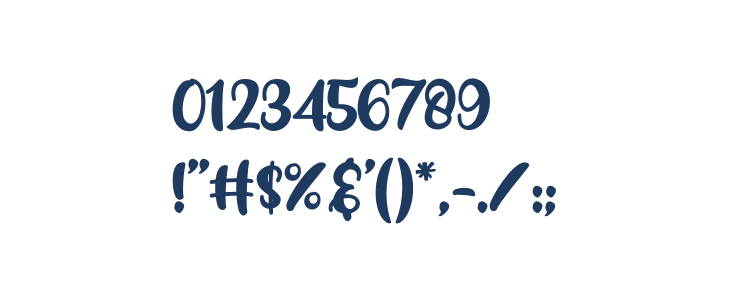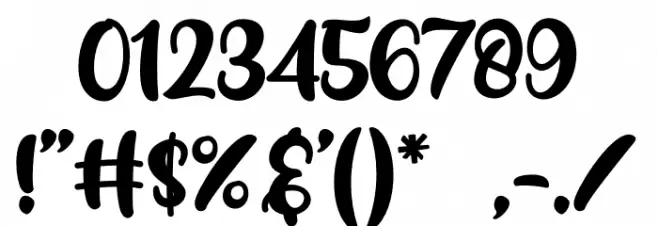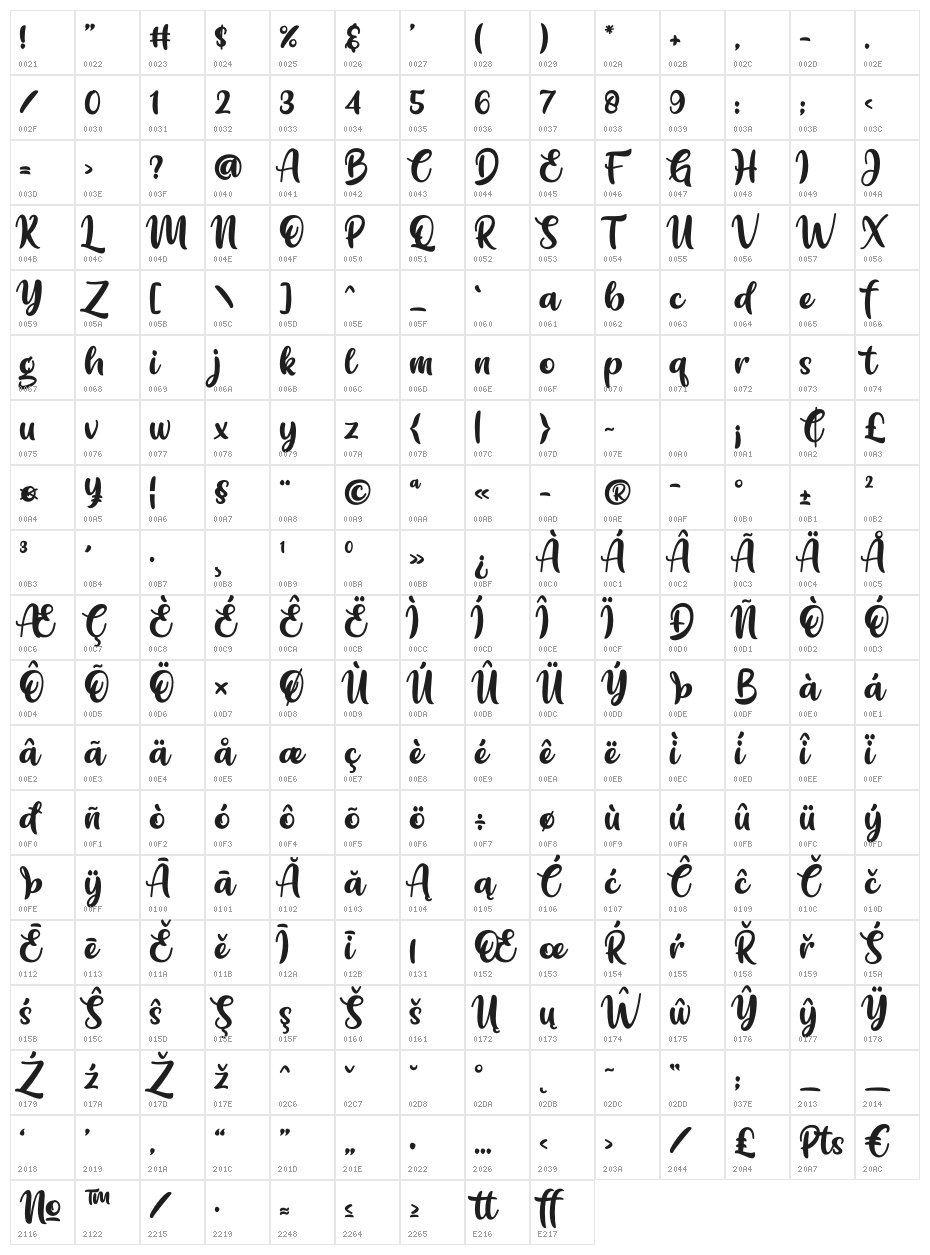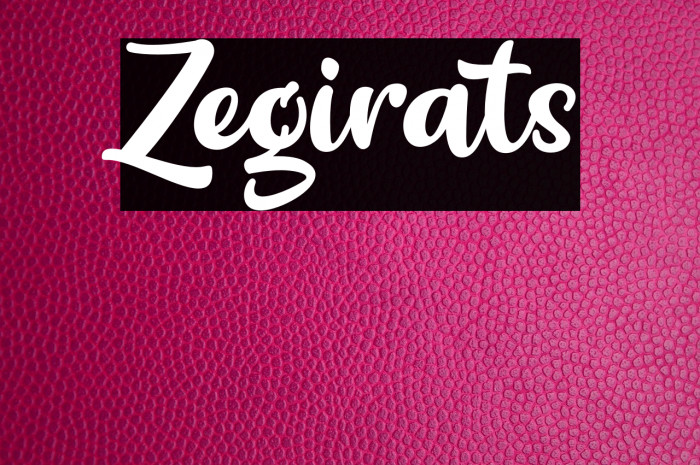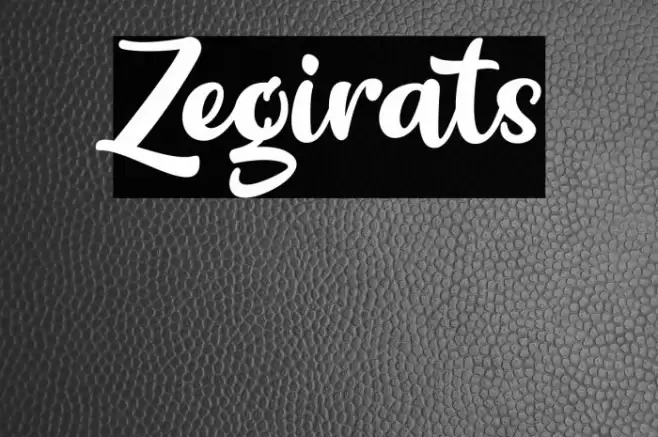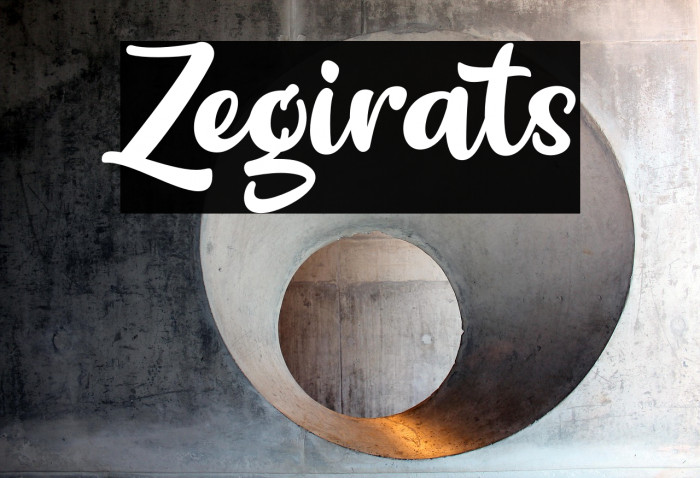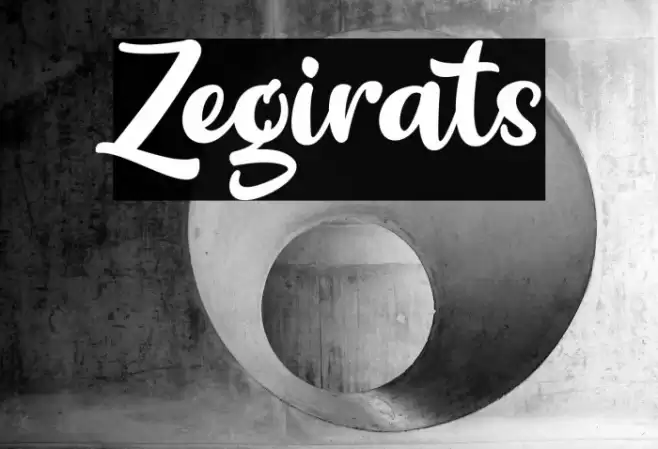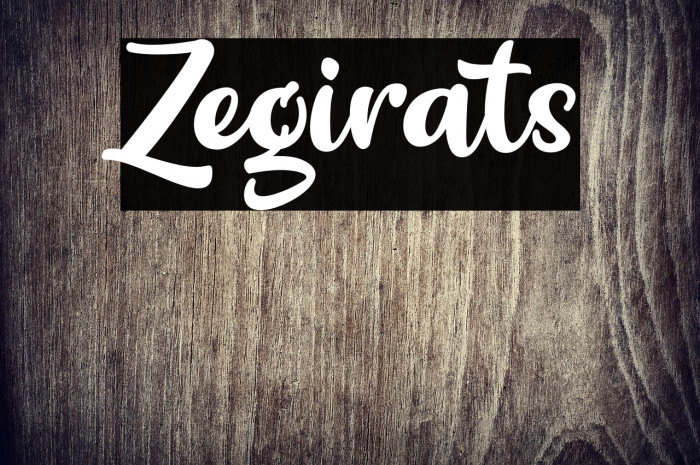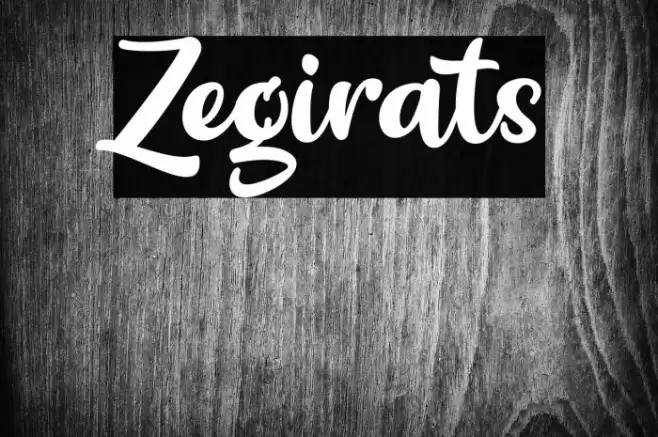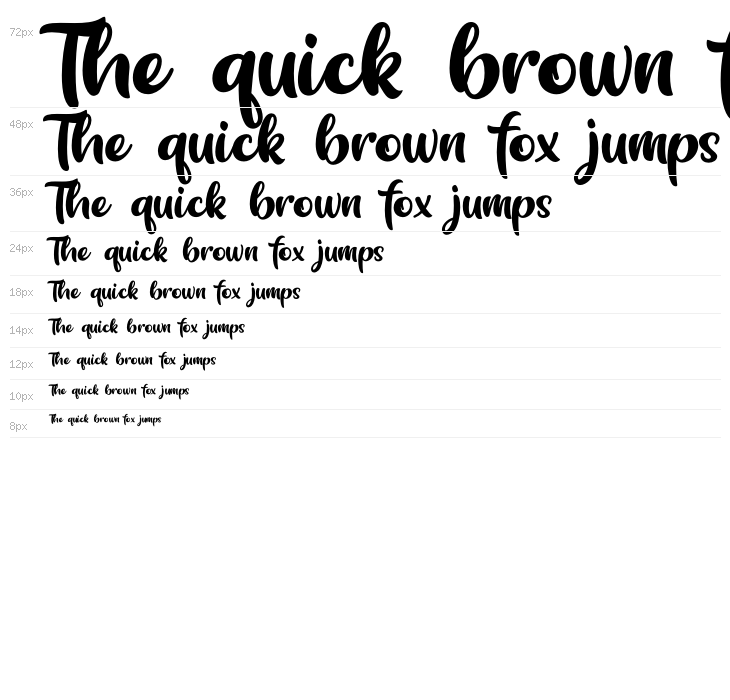
Zegirats Font
Zegirats Description
This font features a bold and expressive script style with a playful and artistic flair. The characters are interconnected with smooth, flowing strokes, giving it a dynamic and lively appearance. The uppercase letters are particularly striking, with exaggerated curves and loops that add a sense of movement and energy. The lowercase letters maintain the same fluidity, creating a cohesive look throughout the typeface. The numerals and special characters are designed to match the overall style, ensuring consistency across all text elements. This font is ideal for projects that require a personal touch or a creative, informal vibe.
| Proposed Projects | Ideal for branding, invitations, greeting cards, and creative projects that require a personal touch. |